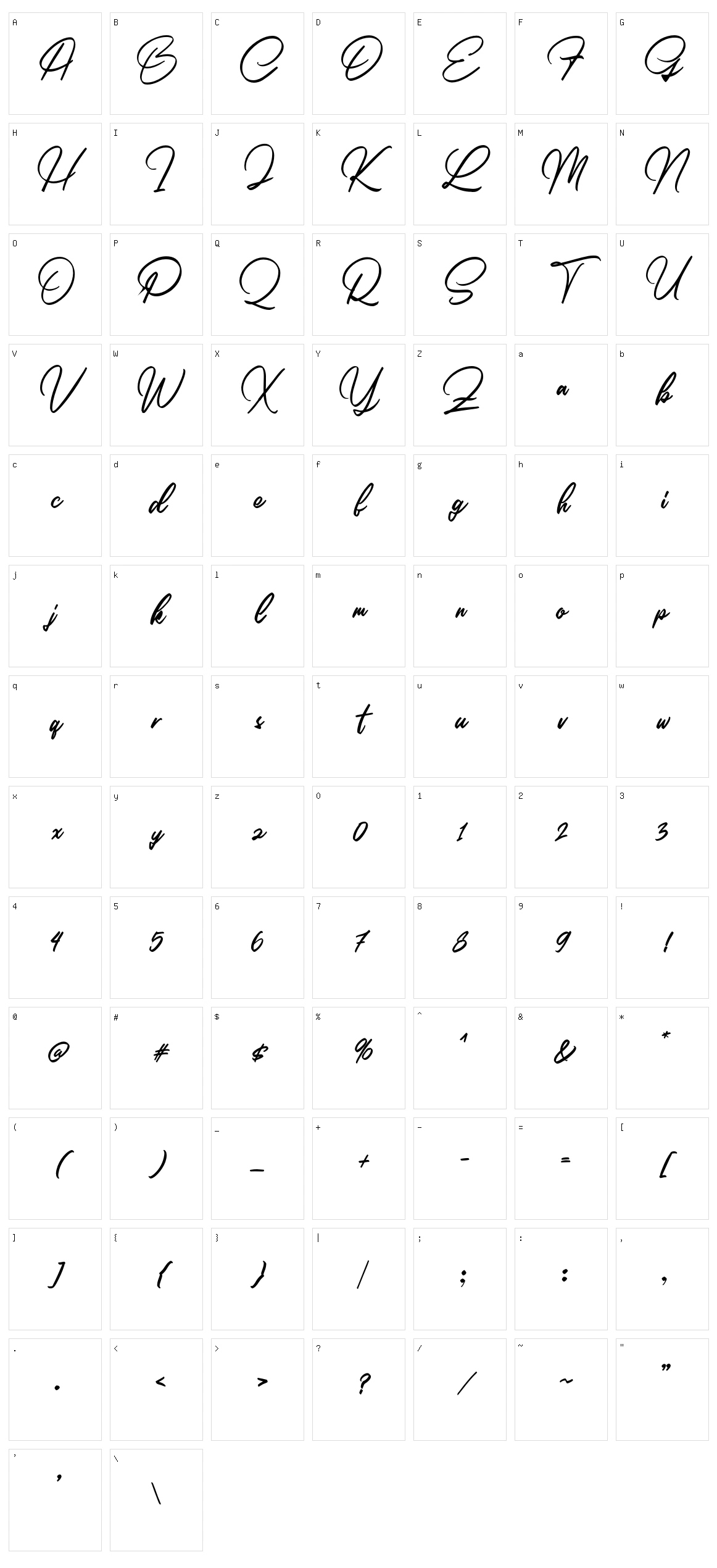
The free font Carhius is carefully designed by Colative Studio, showcasing a thoughtful balance of creativity and usability and falls under the Script font style. When you download the ZIP file, it contains only 29.54 KB of font files, making it lightweight and quick to download. Please review the license details below to understand permitted usage and distribution rights. If license information is not available, we recommend using this font for personal projects only or contacting the author directly for commercial usage permissions.